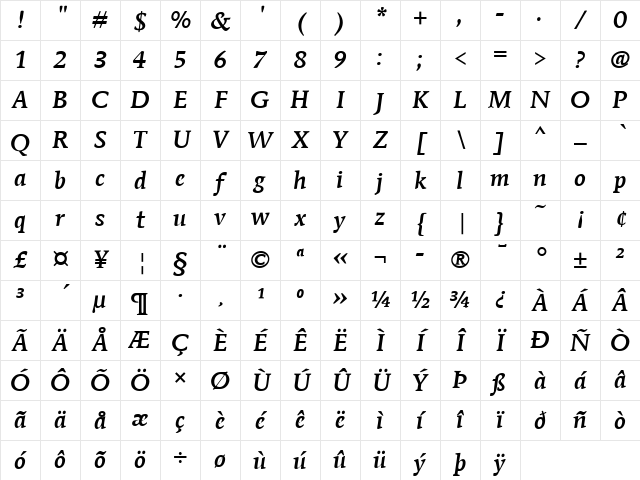
MendozaRomITCMed Italic
Design Context for MendozaRomITCMed
MendozaRomITCMed is a composed and adaptable typeface that performs quietly and consistently across a wide range of design contexts. The slanted form adds forward momentum and visual energy.
Pro Tip: Use MendozaRomITCMed for emphasis, pull quotes, and subheadings where its slanted energy can add rhythm to the layout.